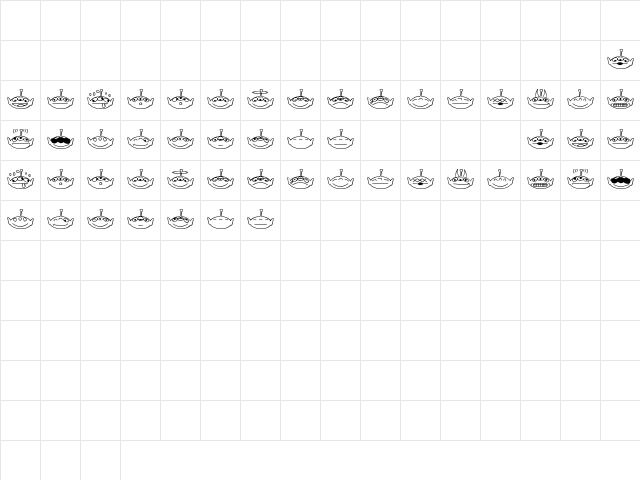
Aliencons two Regular Free Font
Aliencons two Regular
Designer: kaiser zhar khan
Design Context for Aliencons two
Aliencons two is a composed and adaptable typeface that performs quietly and consistently across a wide range of design contexts.